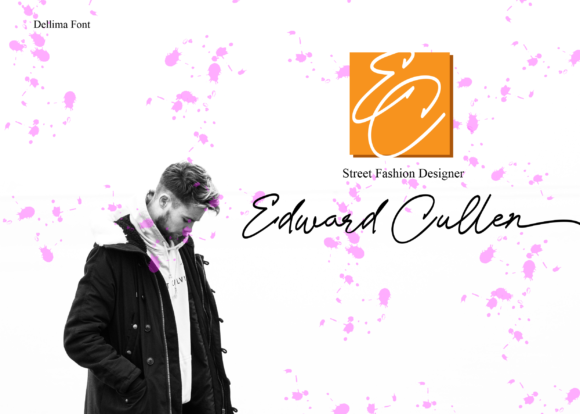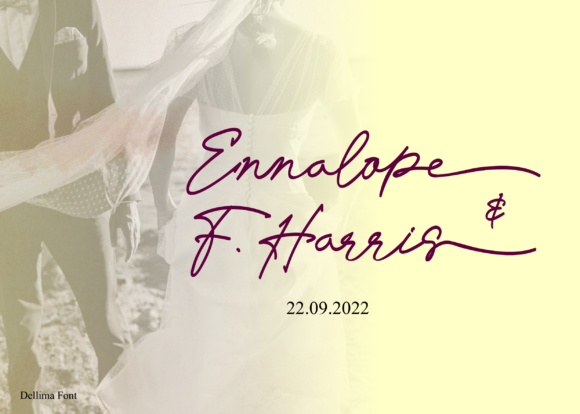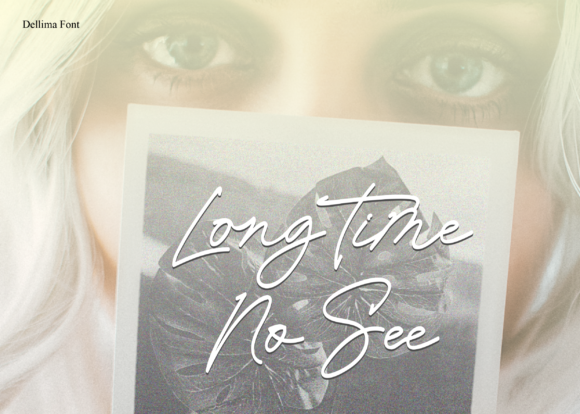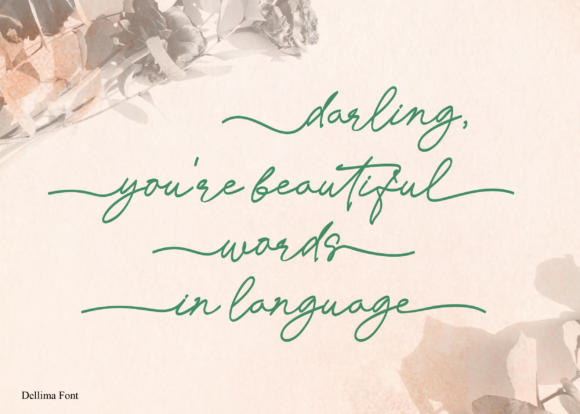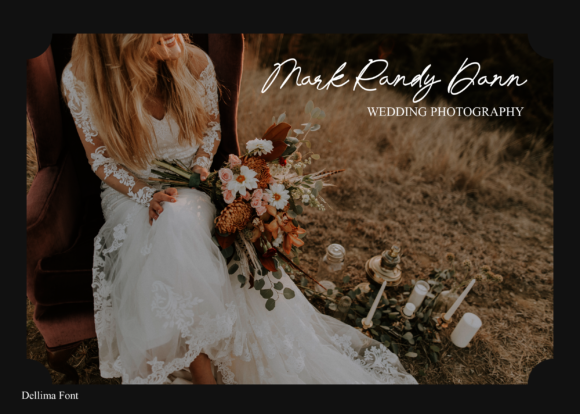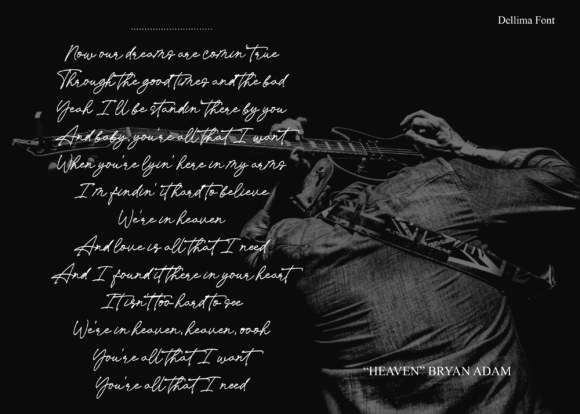
Dellima Font: Elevate Your Designs with a Flowing Handwritten Style
Are you looking for a font that can add a touch of elegance and sophistication to your designs? Look no further than Dellima Font, a beautiful flowing handwritten font that is sure to take your creations to the next level. With its casual and stylish look, Dellima is perfect for designers and crafters who want to add a personal touch to their work.
What is Dellima Font?
Dellima Font is a unique and versatile font that is designed to mimic the look of handwritten text. Its flowing script and cursive letters make it perfect for creating beautiful and eye-catching designs. Whether you’re working on a magazine, logo, greeting card, or invitation, Dellima Font is sure to impress.
Key Features of Dellima Font
• Flowing Handwritten Style: Dellima Font has a beautiful flowing script that gives it a personal and elegant touch.
• Casual and Stylish Look: The font has a casual and stylish look that makes it perfect for a wide range of design projects.
• Versatile: Dellima Font can be used for a variety of design projects, including magazines, logos, greeting cards, invitations, and more.
• Easily Readable: Despite its elegant and cursive style, Dellima Font is easily readable, making it perfect for body text and headings.
Uses of Dellima Font
Dellima Font is a versatile font that can be used for a wide range of design projects. Here are some of the most popular uses of this amazing font:
• Magazines: Dellima Font is perfect for magazine designs, including article titles, headings, and body text.
• Logos: The font’s unique and stylish look makes it perfect for creating logos that stand out.
• Greeting Cards: Dellima Font is ideal for designing greeting cards, including birthday cards, wedding cards, and holiday cards.
• Invitations: The font’s elegant and cursive style makes it perfect for designing invitations for weddings, parties, and other events.
• Social Media Graphics: Dellima Font can also be used to create social media graphics, including Facebook posts, Instagram stories, and Twitter headers.
Benefits of Using Dellima Font
There are many benefits to using Dellima Font in your designs. Here are some of the most significant advantages:
• Unique and Stylish Look: Dellima Font has a unique and stylish look that sets it apart from other fonts.
• Easily Customizable: The font is easily customizable, allowing you to adjust the size, color, and style to fit your design needs.
• Time-Saving: Dellima Font is a pre-designed font that can save you time and effort in creating your own handwritten font.
• High-Quality: The font is designed with high-quality and clarity in mind, making it perfect for both print and digital designs.
Tips for Using Dellima Font
Here are some tips for using Dellima Font in your designs:
• Use it for Headings and Titles: Dellima Font is perfect for headings and titles, where you want to make a statement and add a touch of elegance.
• Pair it with Other Fonts: You can pair Dellima Font with other fonts to create a unique and stylish look.
• Adjust the Size and Color: Adjust the size and color of the font to fit your design needs and create a cohesive look.
• Experiment with Different Styles: Don’t be afraid to experiment with different styles and effects to create a unique look.
Dellima Font is a beautiful and versatile font that can elevate your designs to the highest level. With its flowing handwritten style, casual and stylish look, and versatility, it’s perfect for a wide range of design projects. Whether you’re a designer or crafter, Dellima Font is a must-have font that can add a touch of elegance and sophistication to your work.